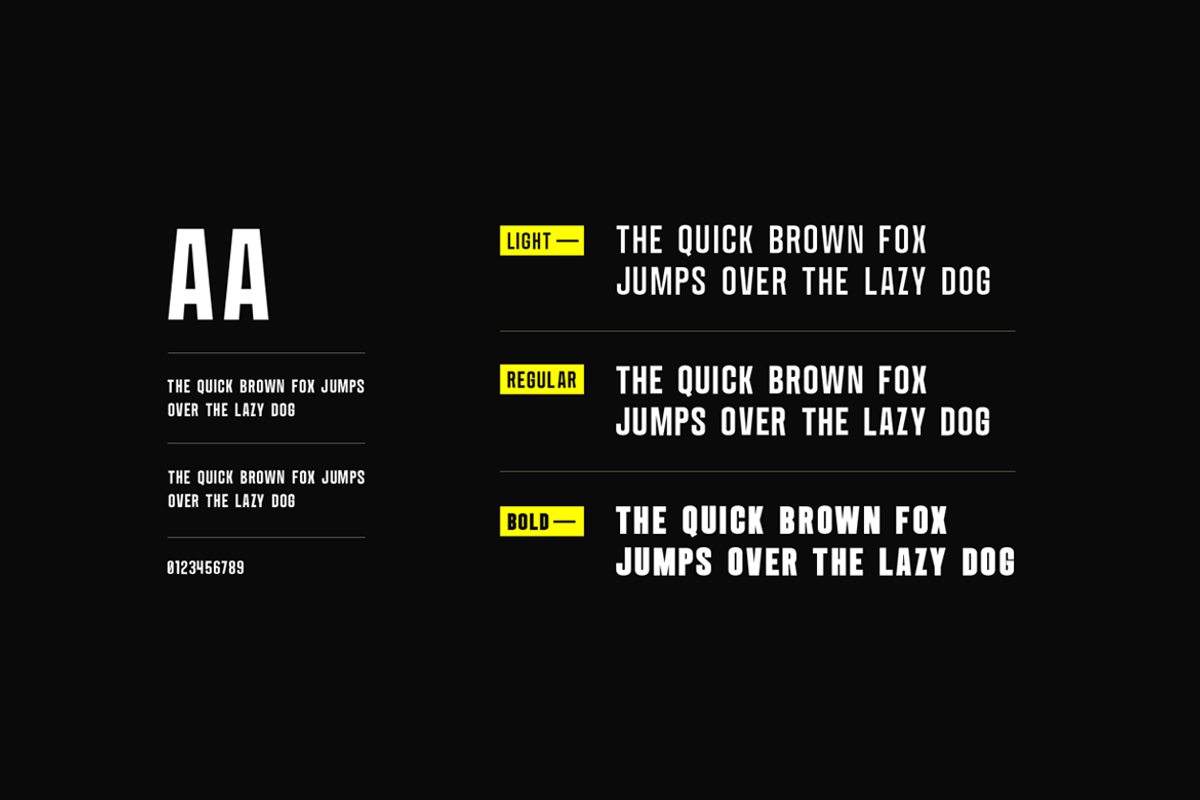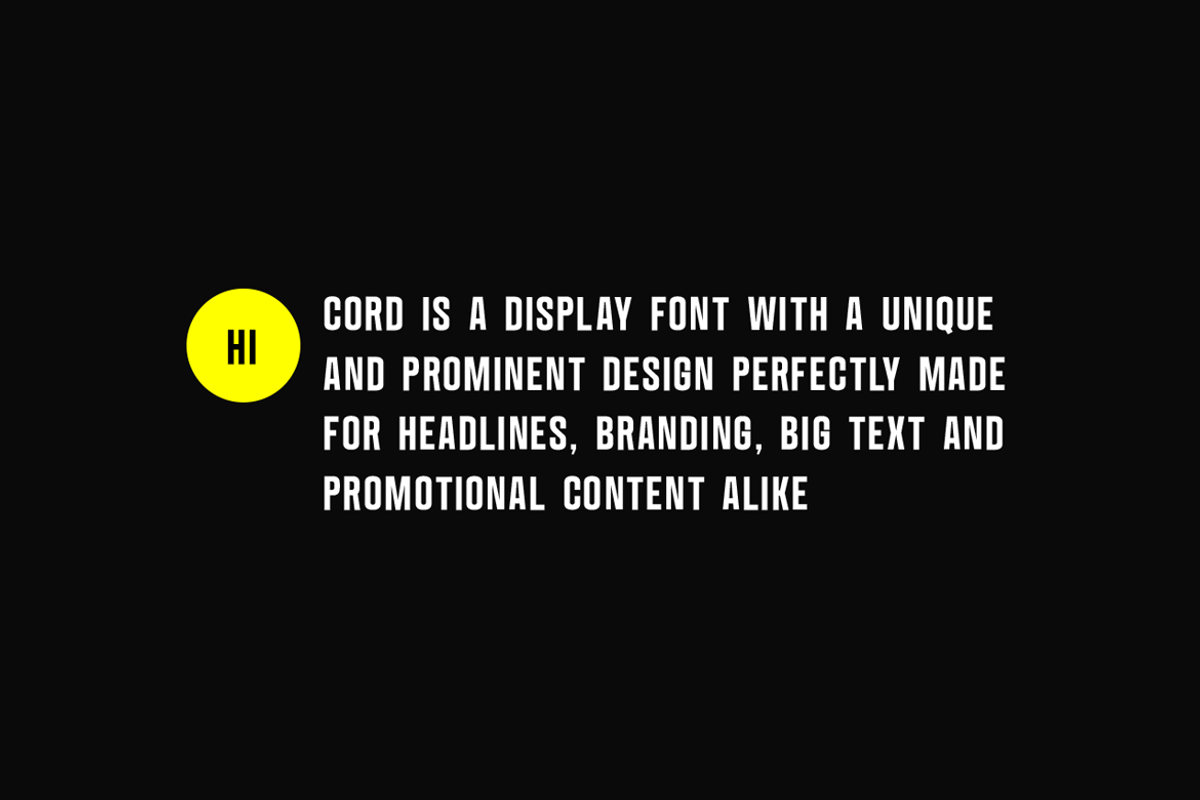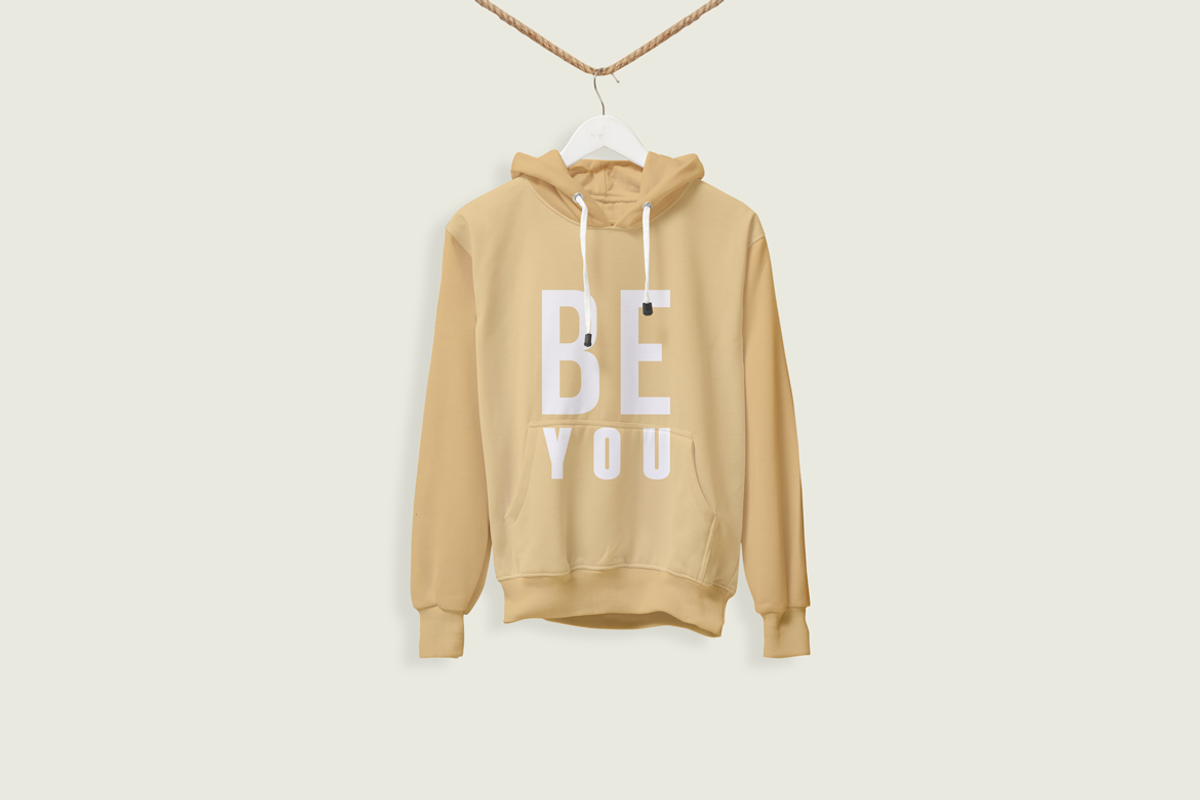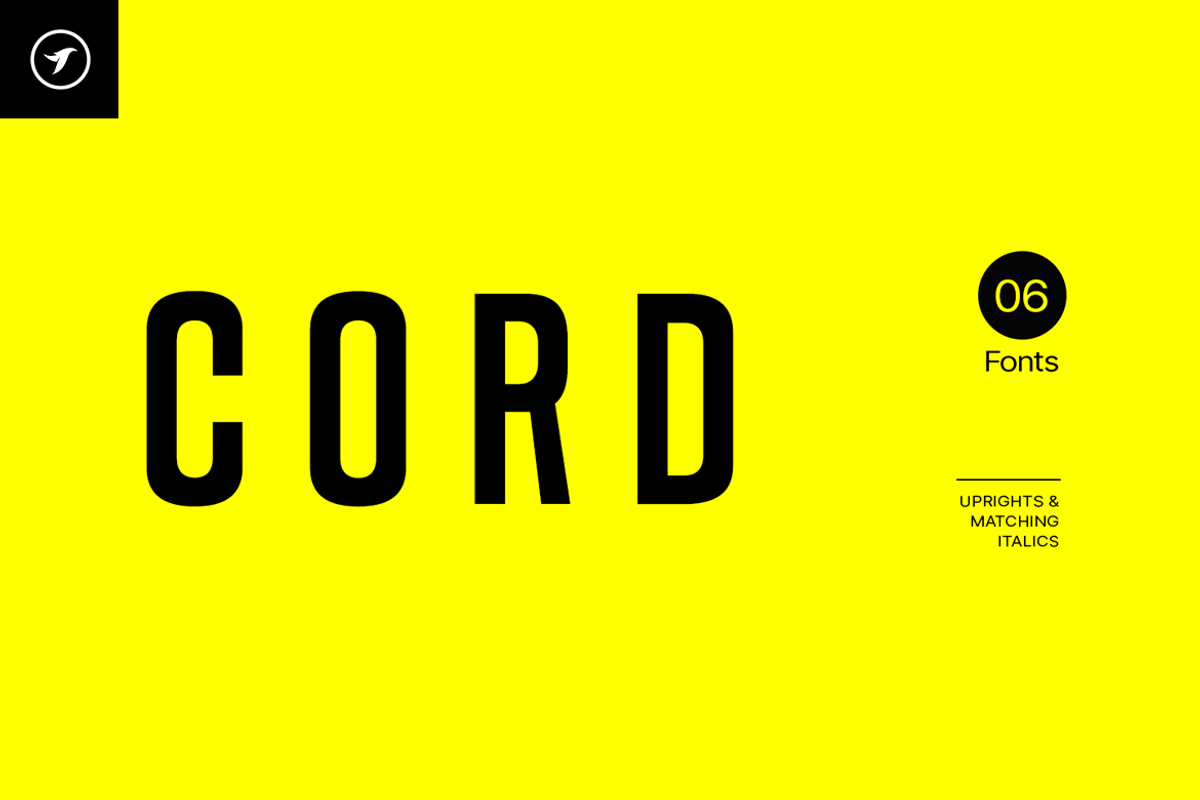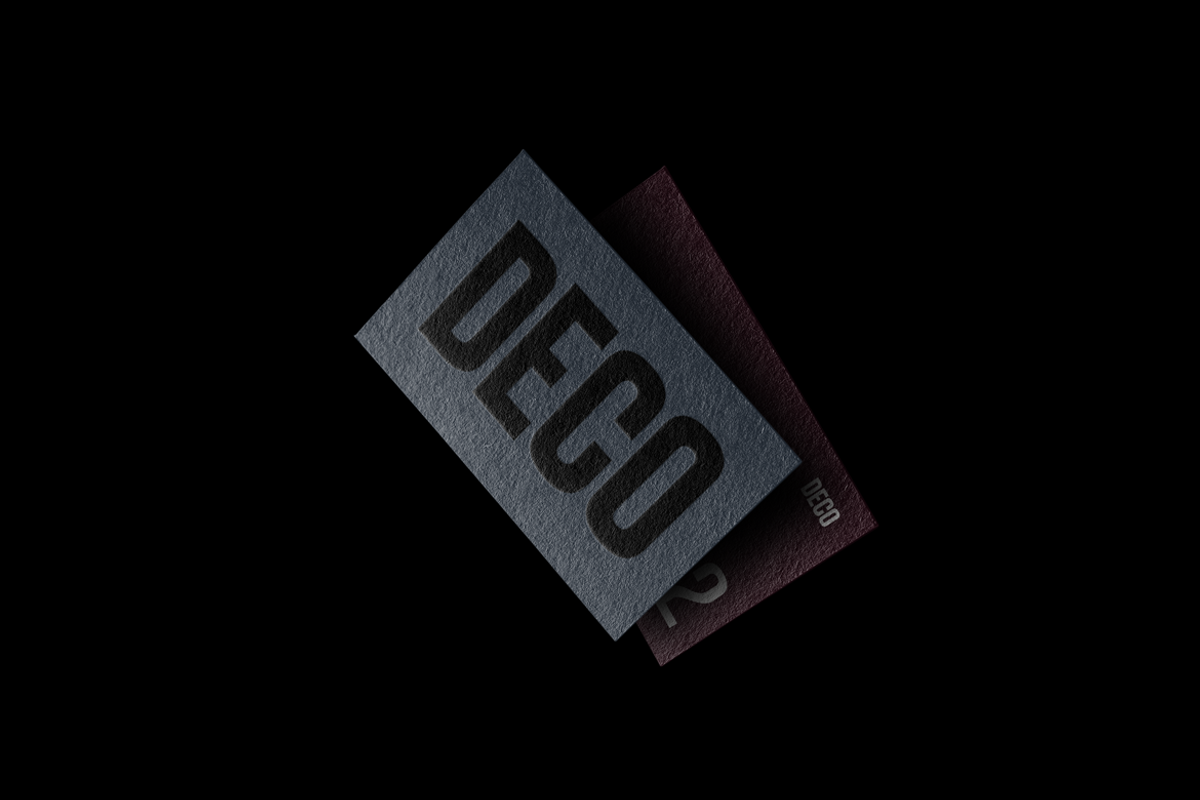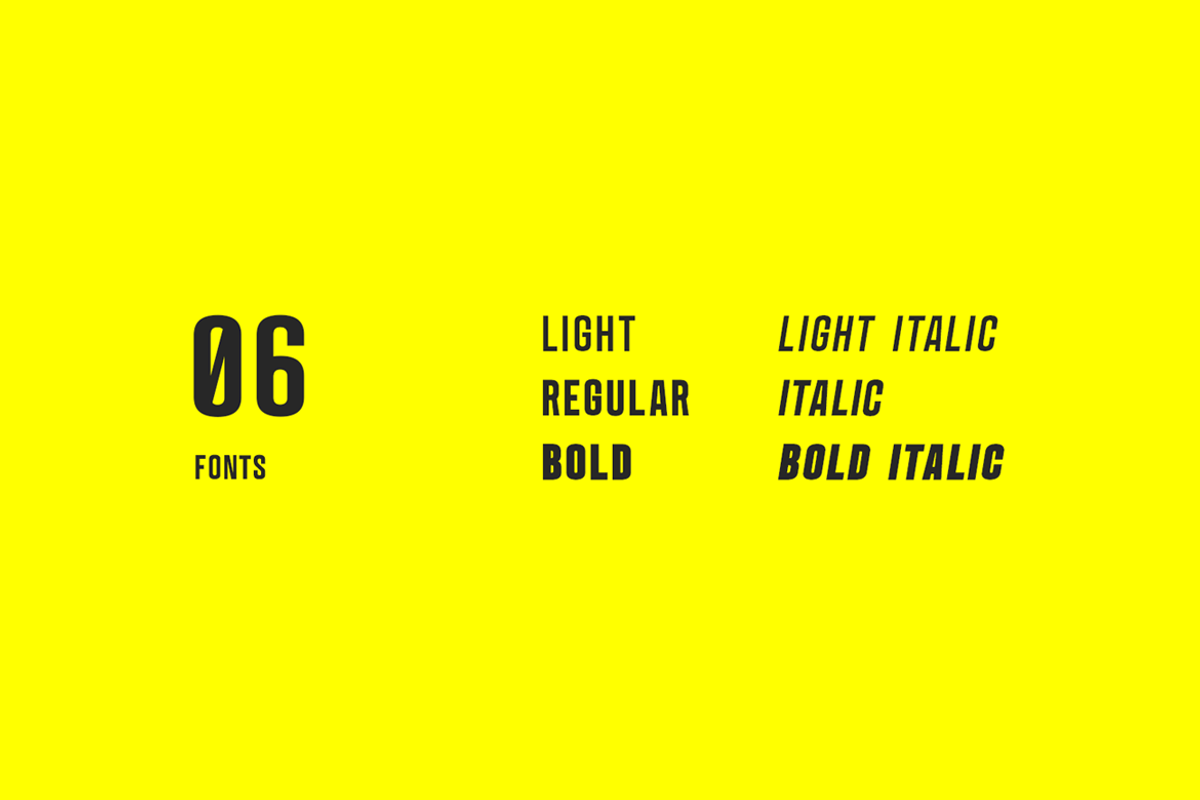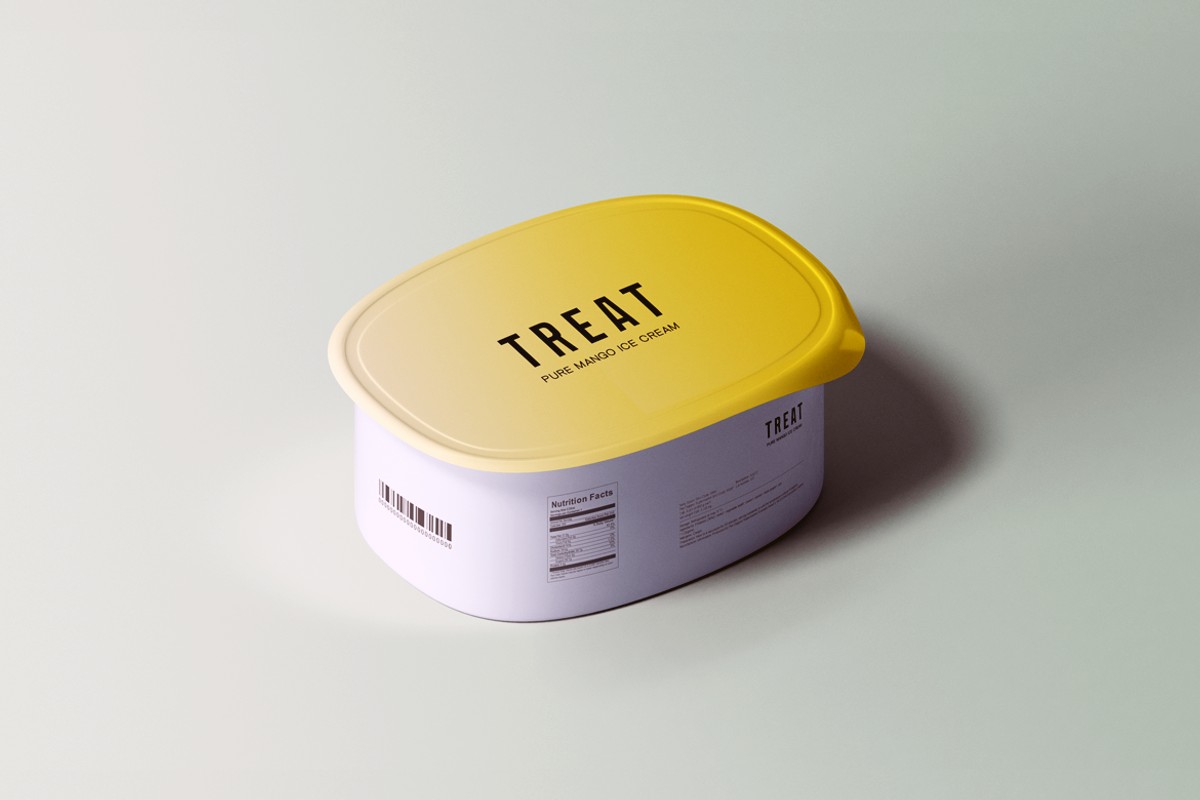
CORD - Fresh Display / Headline Font
CORD is a unique and modern all-caps font family for headlines, big text, branding, logotypes & display usage. This font is also perfect for creating outstanding logos, promotional content, and marketing graphics that can grab your visitors' attention. Adding or reducing the letterspacing of the font will give you more design options for your creative projects. Please see the examples above to get an idea about the capability of this typeface.
The CORD family contains a total of 6 fonts featuring three weights with uprights and italics. Each weight includes extended language support including Western European & Central European sets. A total of 272 glyphs are included. The pack contains OTF, TTF as Desktop fonts, and optional Web Fonts (all EOT, SVG, TTF, WOFF, and WOFF2 formats included) as licensing options.